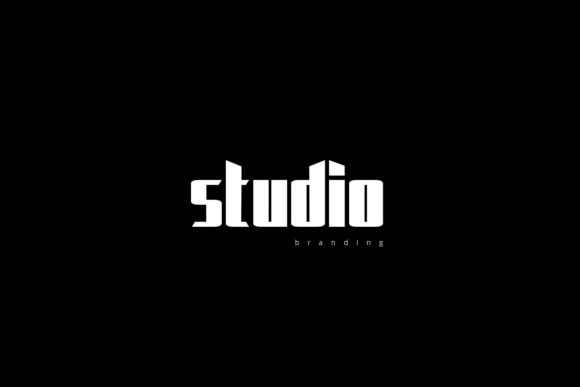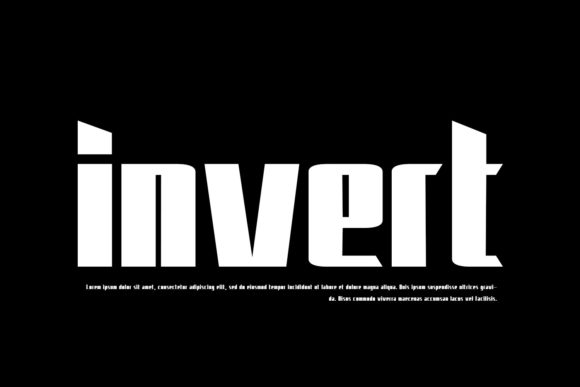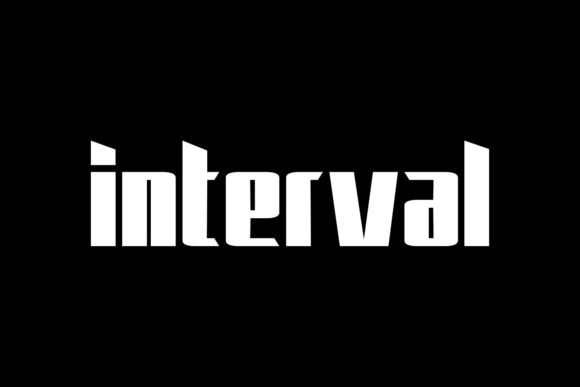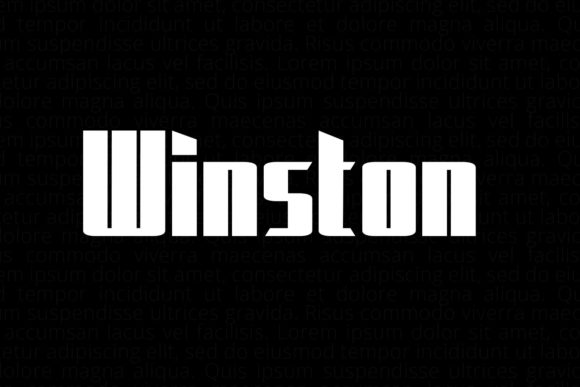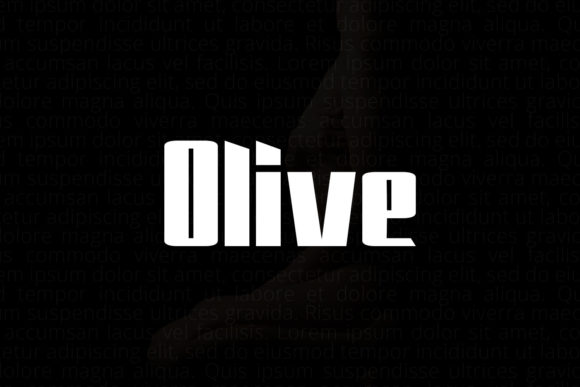
Introducing Anklin Font: The Modern, Authentic, and Bold Display Font
In the world of typography, a font can make or break a design. It’s the foundation of any visual project, and choosing the right one can be a daunting task. For designers and crafters looking for a modern, authentic, and bold display font, look no further than Anklin. This stunning font is perfect for adding an assertive touch to web designs, business cards, and any other project that requires a statement piece.
What is Anklin Font?
Anklin is a contemporary display font that exudes confidence and sophistication. Its bold and authentic design makes it ideal for headlines, titles, and any other text that needs to stand out. The font’s modern aesthetic is perfect for designers who want to add a touch of elegance and style to their work.
Key Features of Anklin Font
- Modern Design: Anklin font boasts a sleek and modern design that’s perfect for contemporary projects.
- Bold and Assertive: The font’s bold and assertive style makes it ideal for headlines, titles, and any other text that needs to grab attention.
- Authentic Touch: Anklin’s authentic design ensures that your project looks professional and polished.
- Versatile: This font is perfect for a wide range of projects, from web designs and business cards to posters and flyers.
Why Choose Anklin Font?
With so many fonts available, why choose Anklin? Here are just a few reasons why designers and crafters love this font:
- Easy to Read: Despite its bold design, Anklin font is easy to read, making it perfect for projects that require a clear and concise message.
- Highly Versatile: Anklin font can be used for a wide range of projects, from digital designs to print materials.
- Unique Style: Anklin’s unique style ensures that your project stands out from the crowd and grabs attention.
How to Use Anklin Font
Using Anklin font is easy. Here are a few tips to get you started:
- Pair with Other Fonts: Anklin font pairs well with other fonts, making it easy to create a cohesive look.
- Use for Headlines: Anklin font is perfect for headlines and titles, where its bold design can really shine.
- Experiment with Colors: Anklin font looks great in a variety of colors, so don’t be afraid to experiment and find the perfect hue for your project.
Who is Anklin Font for?
Anklin font is perfect for:
- Graphic Designers: Anklin font is a great addition to any graphic designer’s toolkit, providing a modern and authentic font for a wide range of projects.
- Crafters: Crafters who want to add a professional touch to their projects will love Anklin font.
- Web Designers: Anklin font is perfect for web designers who want to add a bold and assertive touch to their website designs.
In conclusion, Anklin font is a modern, authentic, and bold display font that’s perfect for designers and crafters looking to add an assertive touch to their projects. With its sleek design, bold style, and versatile nature, Anklin font is a great choice for a wide range of projects. Whether you’re a graphic designer, crafter, or web designer, Anklin font is sure to become a favorite in your toolkit.